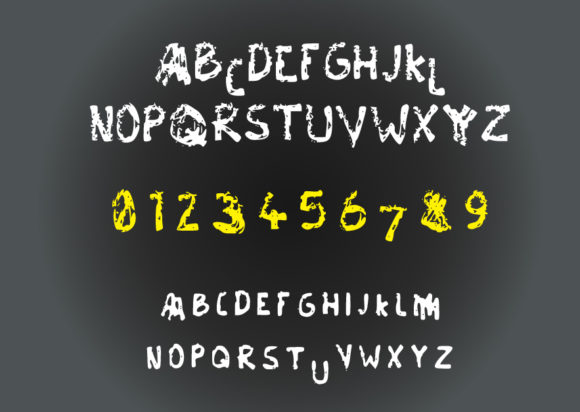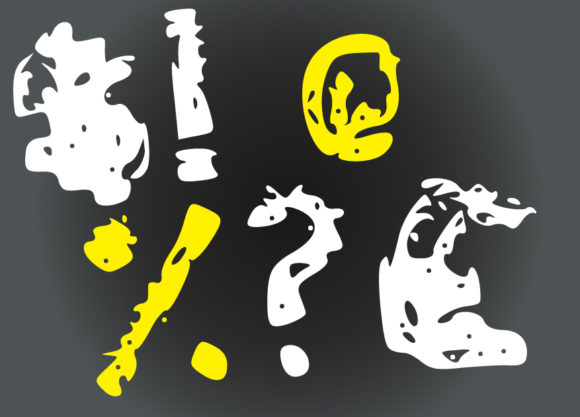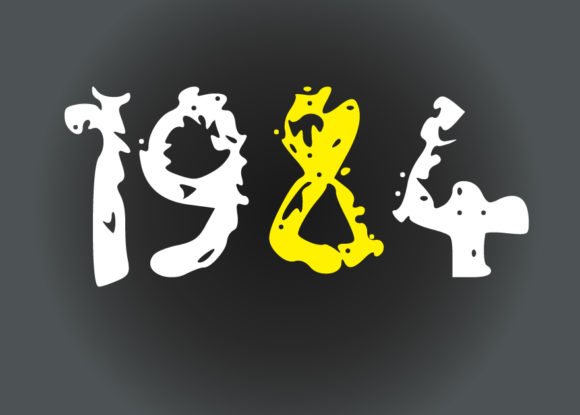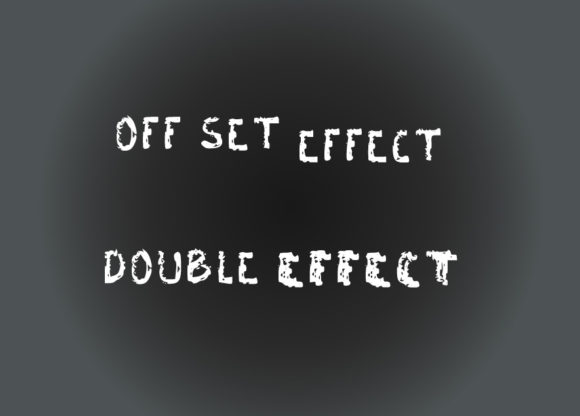
Introducing Dead Print: The Quirky Display Font That’s Bringing Fun Back to Design
In a world where digital media dominates, it’s refreshing to see a resurgence of interest in print design. And what’s more, a font that embodies the spirit of fun, quirkiness, and authenticity that’s missing from so much of today’s design landscape. Enter Dead Print, the enchanting display font that’s here to turn your creative ideas into true standouts.
The Birth of Dead Print
Dead Print is more than just a font – it’s a statement. It’s a reflection of the design world’s desire to break free from the shackles of conventional typography and inject some much-needed personality into our visual communications. With its unique blend of playfulness and charm, Dead Print is the perfect solution for designers and crafters looking to add a dash of whimsy to their work.
What Makes Dead Print So Special?
So, what sets Dead Print apart from the countless other fonts out there? For starters, its distinctive, hand-crafted aesthetic gives it a refreshingly human feel that’s hard to find in digital fonts. Each letter has been carefully crafted to convey a sense of fun and spontaneity, making it perfect for projects that require a bit of flair.
But Dead Print is more than just a pretty face. It’s also incredibly versatile, making it suitable for a wide range of applications, from branding and advertising to packaging and editorial design. Whether you’re looking to create a bold, eye-catching headline or a more subtle, supporting text, Dead Print has got you covered.
The Benefits of Using Dead Print
So, why should you consider using Dead Print in your next design project? Here are just a few compelling reasons:
- Adds personality to your design: Dead Print’s quirky, offbeat charm is guaranteed to make your design stand out from the crowd.
- Perfect for creative projects: Whether you’re working on a branding campaign, a editorial spread, or a packaging project, Dead Print is the perfect choice for creative types.
- Easy to use: Despite its complex, hand-crafted aesthetic, Dead Print is surprisingly easy to use, even for those with limited design experience.
- Highly versatile: From bold headlines to subtle supporting text, Dead Print can be used in a wide range of applications.
How to Use Dead Print in Your Design Projects
Ready to give Dead Print a try? Here are a few tips for incorporating this fabulous font into your next design project:
- Pair it with a neutral font: Dead Print’s bold, playful aesthetic works best when paired with a more neutral font. Try pairing it with a clean sans-serif font like Arial or Helvetica.
- Use it sparingly: While Dead Print is undoubtedly a showstopper, it’s best used sparingly. Try using it for headlines or key phrases, and a more neutral font for supporting text.
- Experiment with colors: Dead Print looks great in a wide range of colors, so don’t be afraid to experiment and find the perfect hue for your design.
In conclusion, Dead Print is a game-changing display font that’s here to bring fun, quirkiness, and authenticity back to design. With its unique blend of playfulness and charm, it’s the perfect solution for designers and crafters looking to add a bit of whimsy to their work. So why not give Dead Print a try and see the difference it can make?
Whether you’re a seasoned designer or a crafty DIY enthusiast, Dead Print is sure to delight. So go ahead, get creative, and let Dead Print work its magic on your next design project!